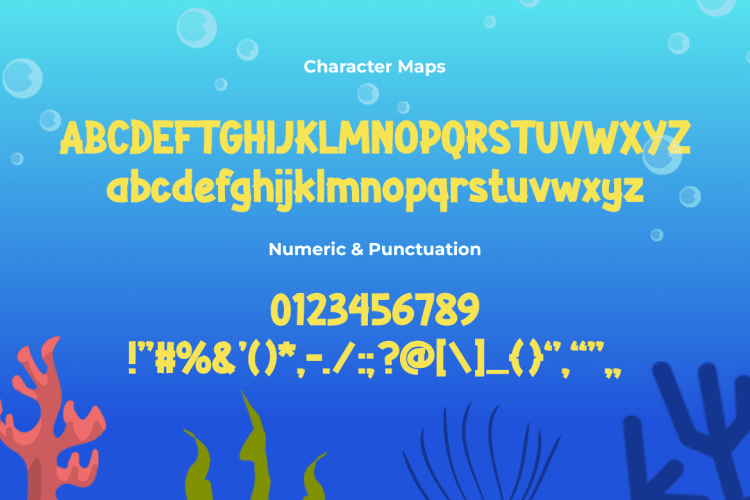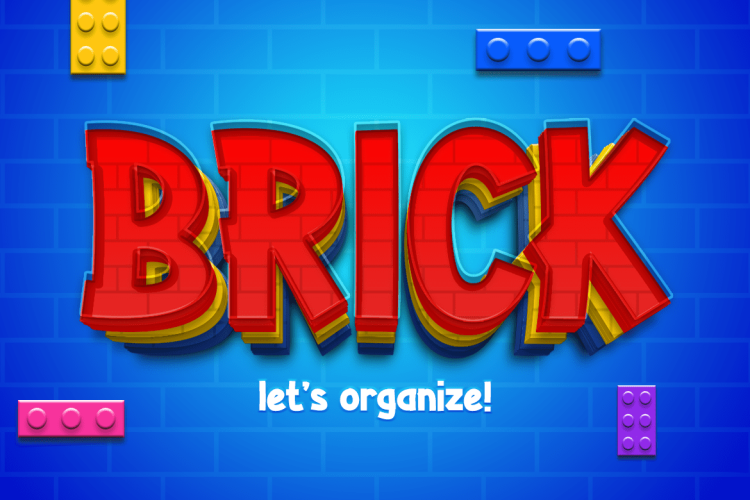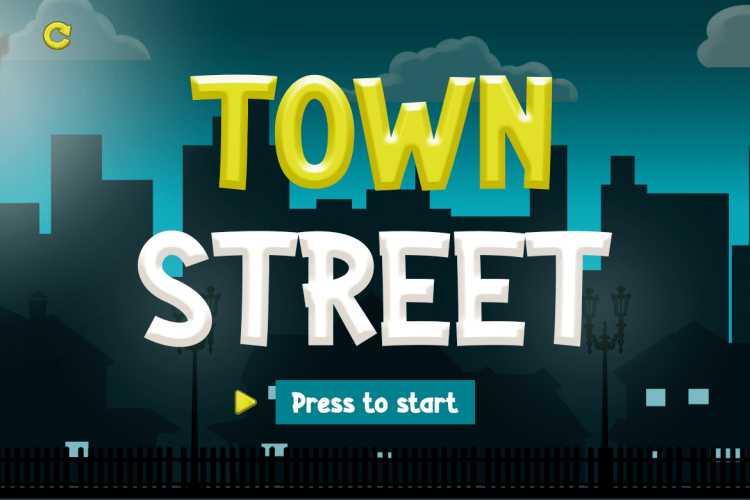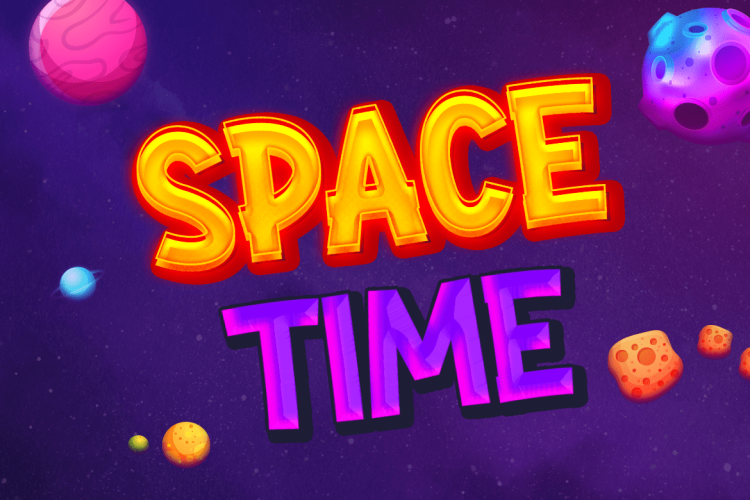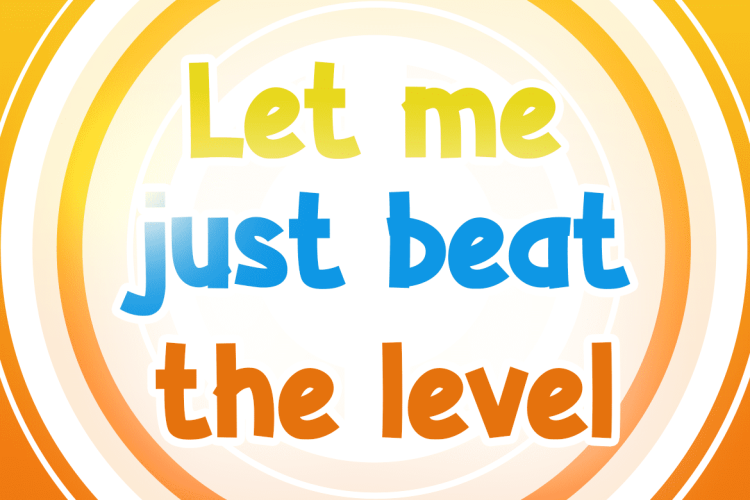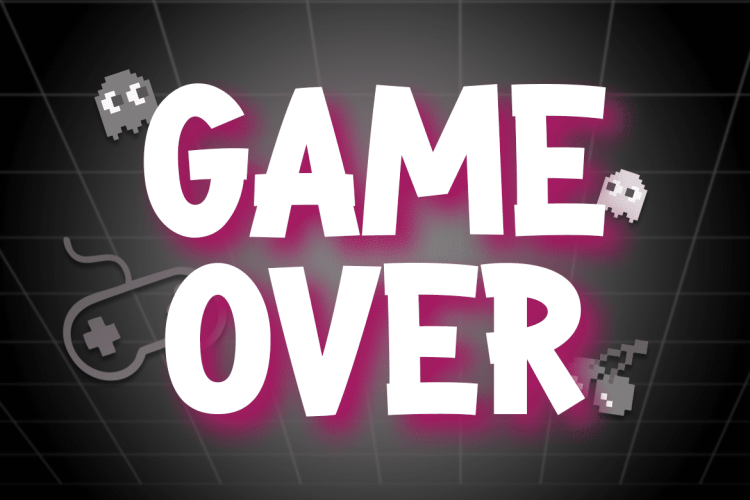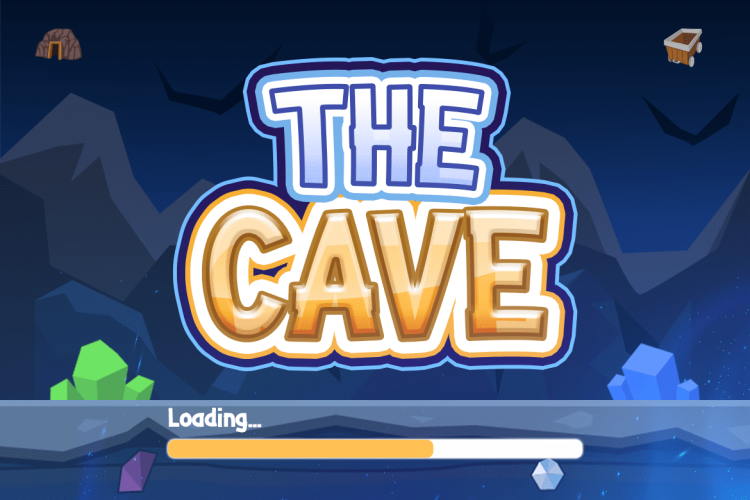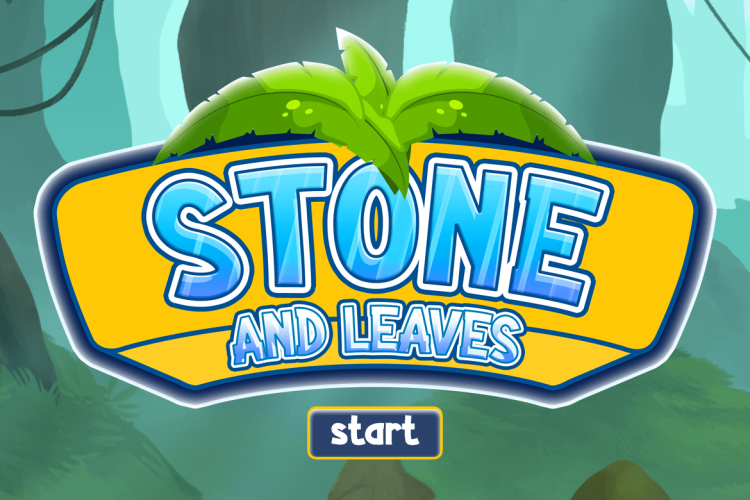
Gaming Font Power Up is a vibrant and energetic typeface designed to add excitement to your creative projects. Itโs perfect for game developers, marketers, and content creators who want to craft engaging visuals. With its bold and playful letterforms, Power Up works well for game titles, posters, event banners, and branding materials. Its style exudes energy and enthusiasm, making it a top choice for fun and dynamic designs.
Additionally, its dynamic look captures the spirit of gaming culture. This makes it a great choice for designs targeting gamers or younger audiences. Whether youโre creating eye-catching advertisements, playful social media posts, or themed merchandise, Power Up adds a unique flair to your work. Its seamless readability ensures your message stands out, even in complex or colorful layouts.
Power Up doesnโt just offer styleโit provides a way to build emotional connections with your audience. The fontโs bold curves and striking shapes evoke excitement, making it perfect for campaigns centered around action, adventure, or creativity. This font is not just for gaming; itโs also a great fit for educational projects or events that require an energetic tone.
Gaming Font Power Up, Versatile and Ready for Creative Exploration
Power Up isnโt just stylishโitโs incredibly adaptable. Its clean and expressive design ensures that it works well for both digital screens and physical prints. Whether youโre designing logos, UI interfaces, or promotional materials, Power Up leaves a strong impression. Its versatility makes it equally suitable for high-tech projects or nostalgic throwback designs.
This font blends modern aesthetics with a nostalgic twist. It gives your designs a fresh and familiar feel, appealing to a wide range of audiences. Pair it with bright, contrasting colors to enhance its playful charm. Alternatively, use it alongside geometric shapes and vibrant patterns for added visual impact. Its approachable style suits informal projects but is polished enough for professional presentations.
Ultimately, Gaming Font Power Up offers the ideal mix of energy, creativity, and versatility. If you want your designs to command attention, this font is the perfect choice. From game titles to marketing materials, Power Up ensures your projects are exciting, engaging, and impossible to ignore. Its charm and functionality will help you bring your creative vision to life.